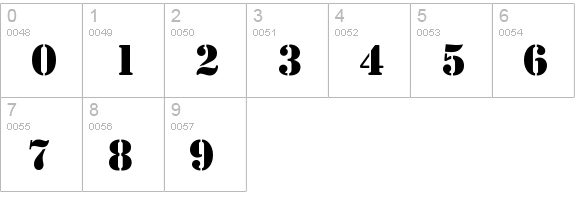
Template Caps Medium SSi Medium is a balanced, medium-weight variant in the Template typeface family \xE2\x80\x94 well suited to sub-headlines, navigation, and balanced editorial work.
Introducing Template Caps Medium SSi Medium font, a modern and versatile typeface that strikes the perfect balance between sophistication and readability. With its clean lines and elegant curves, this font is ideal for a wide range of design projects, from branding and advertising to packaging and editorial. The medium weight of Template Caps Medium SSi adds just the right amount of emphasis, making it suitable for both headlines and body text. Whether you're creating a magazine layout, a website design, or a logo, this font will effortlessly elevate your work and make it stand out. One of the best features of Template Caps Medium SSi Medium font is that it is freely available to download at FontsMarket.com. This means that you can easily access and use this high-quality typeface without any restrictions. By offering it for free, we believe in democratizing design and making it accessible to everyone. So why wait? Give your projects a touch of sophistication and professionalism with Template Caps Medium SSi Medium font. Download it for free today at FontsMarket.com and unlock limitless creative possibilities.